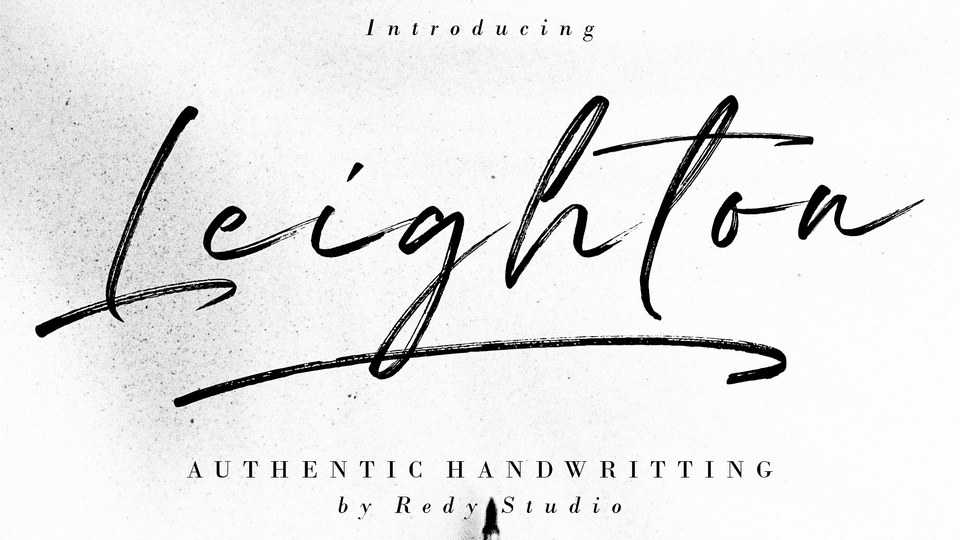
Leighton Authentic Brush Font › Fontesk – Download Grátis
Download Leighton font, an authentic handwriting brush script that has been inspired by some of the most famous sign painters in the past. Leighton is a great font to use on your packaging design and branding projects.
Designer: Redy Studio